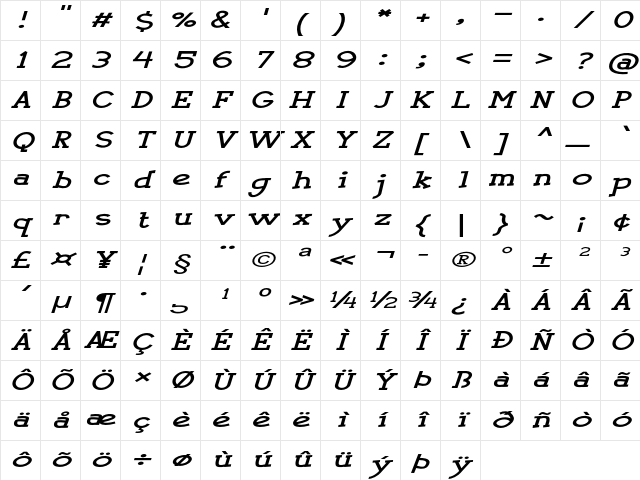
Chamomile Extra-expanded Italic
Style: Extra-expanded Italic
Chamomile Family
Chamomile Extra-expanded Italic
Chamomile Extra-expanded Italic Font Preview
Chamomile Extra-expanded Italic Uppercase Preview
Chamomile Extra-expanded Italic Lowercase Preview
Chamomile Extra-expanded Italic Numeric Preview
Design Context for Chamomile
Chamomile is a composed and adaptable typeface that performs quietly and consistently across a wide range of design contexts. The slanted form adds forward momentum and visual energy.